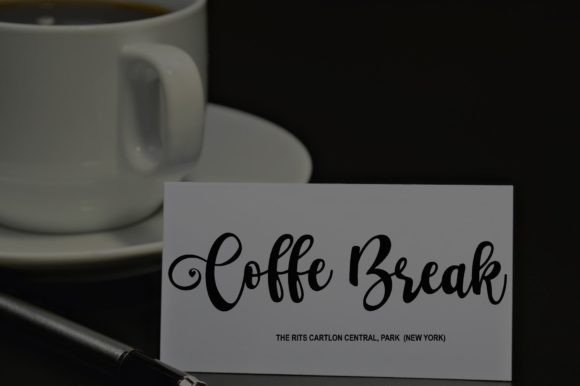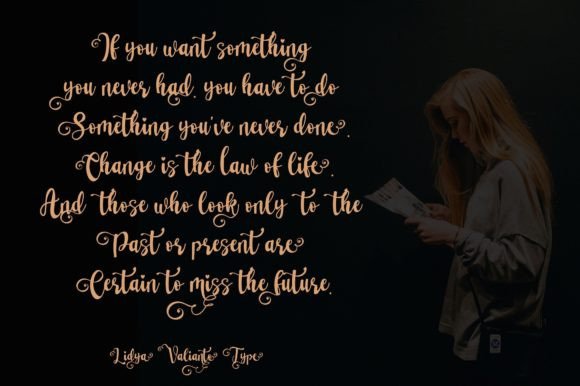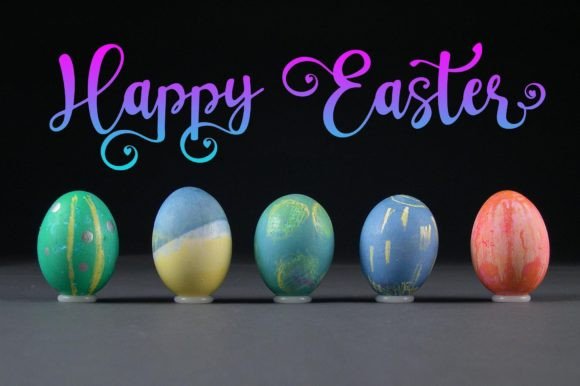
Introduction to Hello Septiemberia Font
Do you remember that moment when a beautiful handwritten font caught your eye, and you instantly knew it was the perfect fit for your creative project? For many designers, that moment is what drives them to create something truly special. And if you’re one of them, you’re in luck! We’re excited to introduce you to the stunning Hello Septiemberia Font, a high-quality, elegant handwritten font that’s sure to bring your designs to life with confidence, authenticity, and charm.
Key Features of Hello Septiemberia Font
- High-quality, professional font design suitable for creative projects, including posters, flyers, and brochures.
- Features a transparent background, allowing for seamless integration into any design, including images and videos.
- Designed with a unique, modern aesthetic, perfect for adding a touch of sophistication to any creative project.
Honest Review: Hello Septiemberia Font
As a designer, I’m always on the lookout for unique and high-quality fonts to elevate my creative projects. Recently, I stumbled upon the Hello Septiemberia Font, and I’m excited to share my thoughts on this design resource.
What works well is the font’s versatility – it’s perfect for a variety of creative projects, from branding to editorial design. The high-quality design ensures that the font looks great on any background, including transparent backgrounds, which is a major plus for designers who need flexibility.
- ✨ Unique and creative design that adds a touch of personality to any project
- ✨ High-quality design that looks great on any background
However, there are a few limitations to consider: the font may not be suitable for very formal or conservative projects, and some users may find the design too bold or attention-grabbing.
Overall, I’m impressed with the Hello Septiemberia Font, and I’d definitely recommend it to designers who are looking for a creative and high-quality design resource. Just be aware of the potential limitations and use your discretion accordingly.
Hello Septiemberia Font
Tips for Getting the Most Out of Hello Septiemberia Font
To get the most out of Hello Septiemberia Font, experiment with different font sizes, colors, and combinations to find the perfect look for your design. You can also use this font in conjunction with other design elements to create a unique and creative project.
Hello Septiemberia Font is perfect for a variety of design projects, including: logos, business cards, social media graphics, and presentations. Its versatility and high-quality design make it a valuable addition to any design resource library.